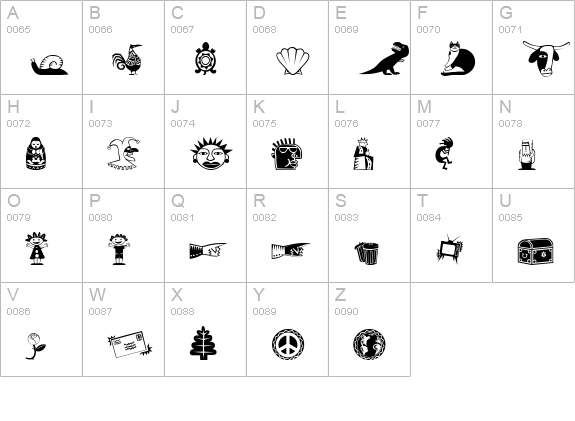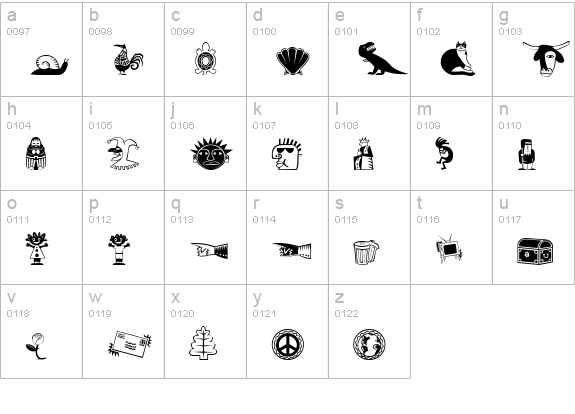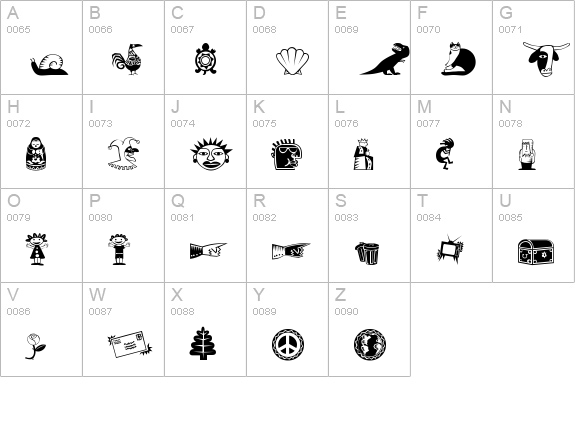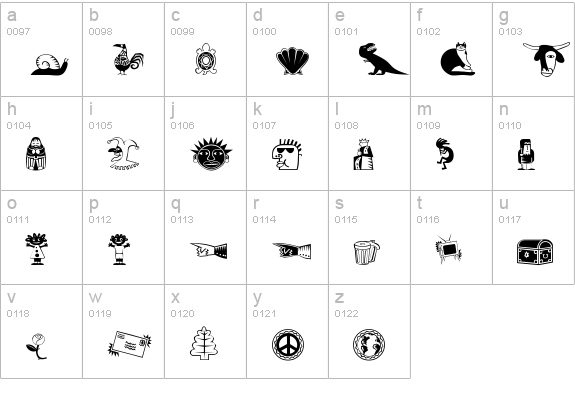
PopticsTwoExtras font is a versatile and unique typeface that adds a touch of creativity to your design projects. With its playful and modern aesthetic, this font is perfect for adding a fun and stylish element to your work. PopticsTwoExtras offers a wide range of additional characters and symbols, making it ideal for creating eye-catching designs and layouts. Whether you're working on a poster, flyer, or branding project, this font will surely make your text stand out. Best of all, PopticsTwoExtras font is completely free to download at FontsMarket.com. Simply visit the website and easily access this font to enhance your creative projects. Don't miss out on the opportunity to add PopticsTwoExtras to your font collection and take your designs to the next level. Download it today and start exploring the endless possibilities this font has to offer!